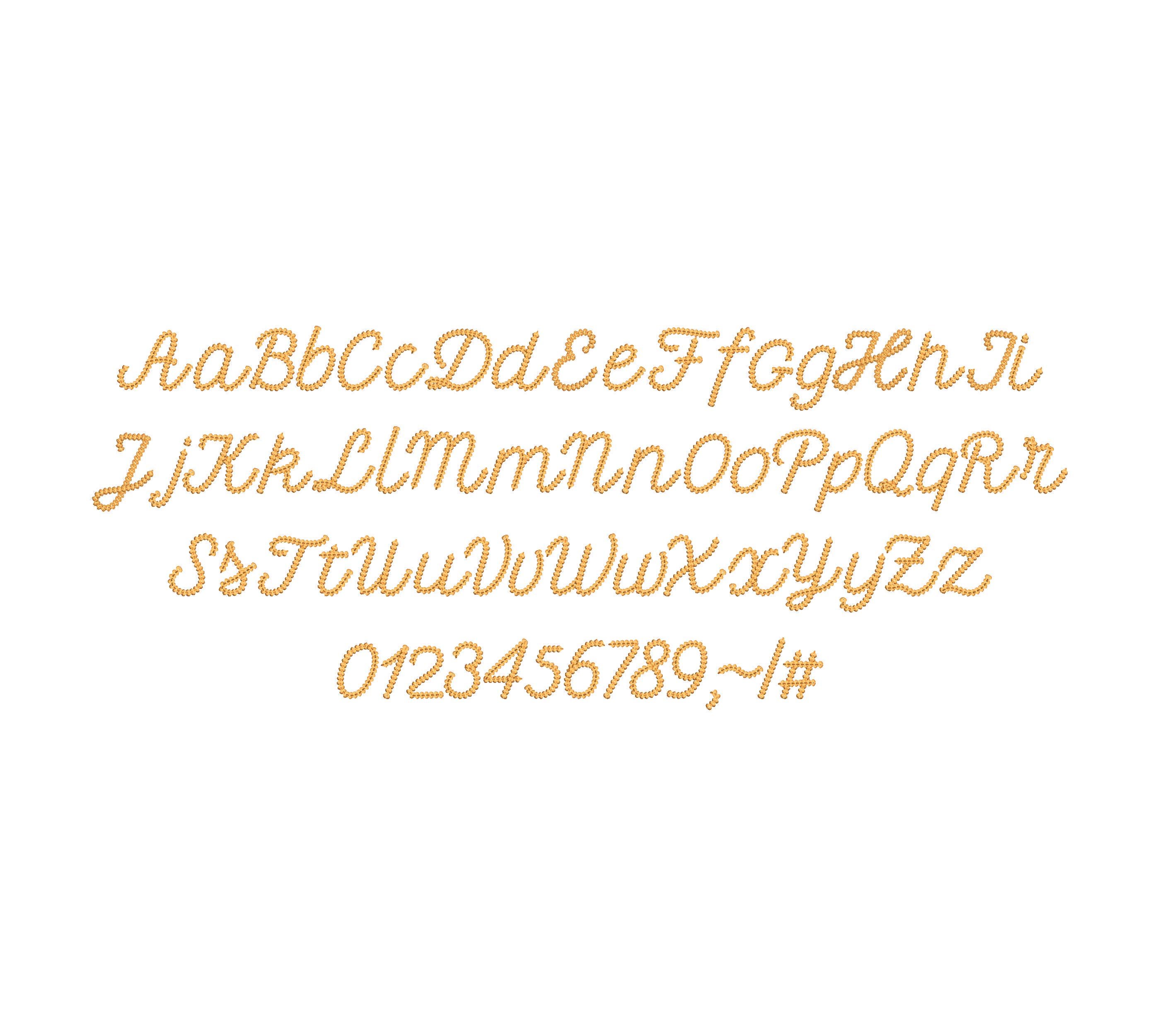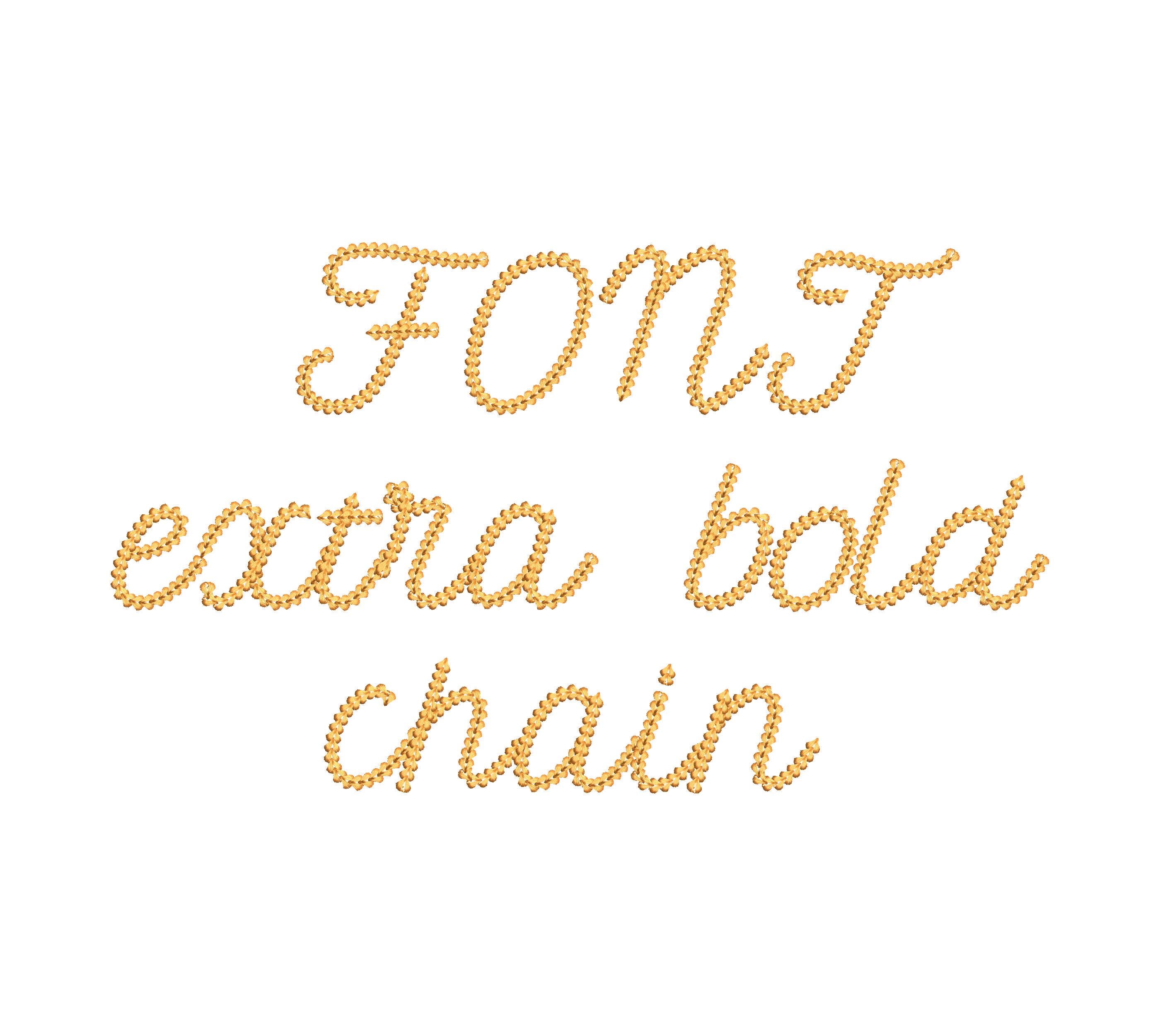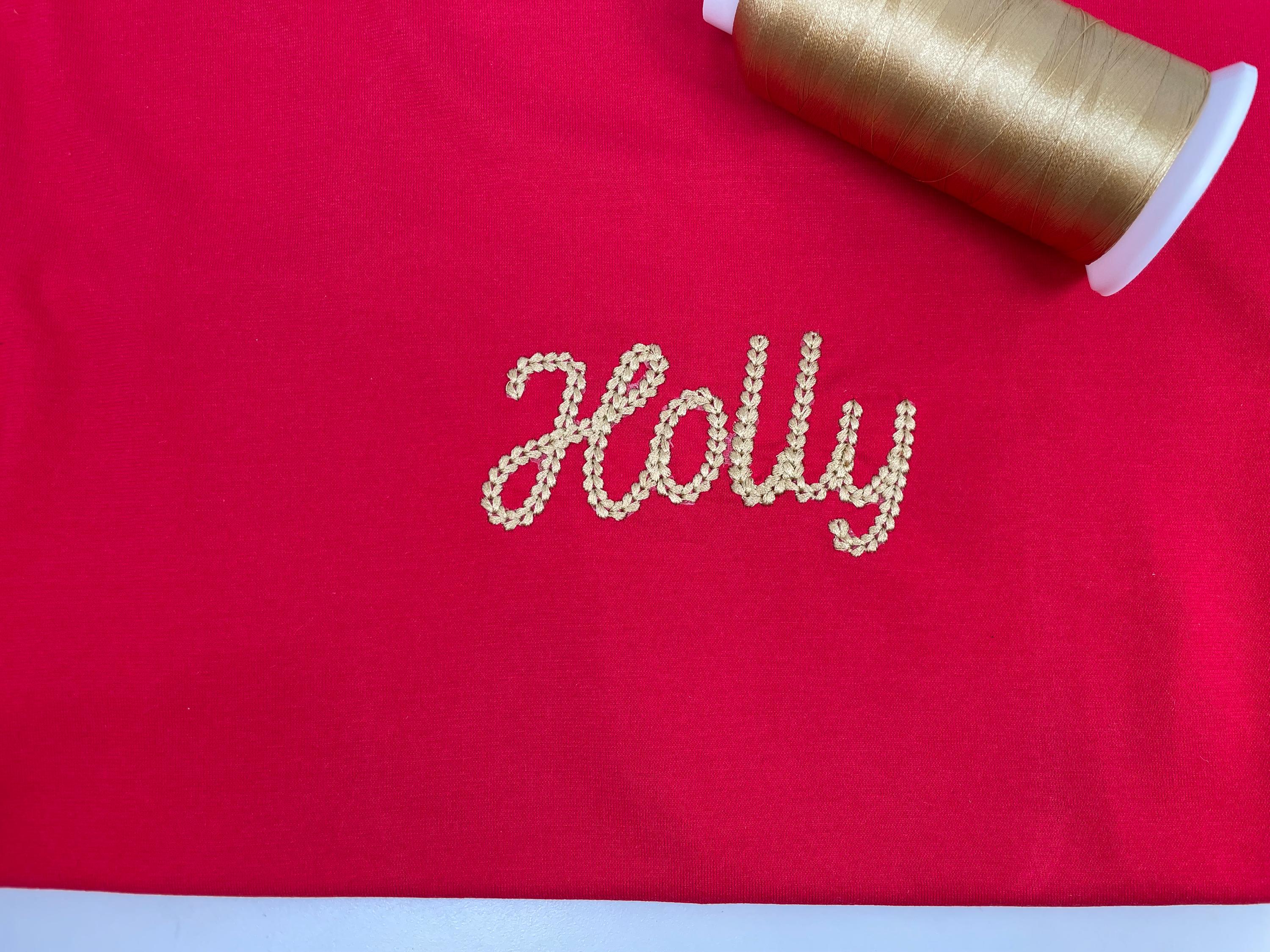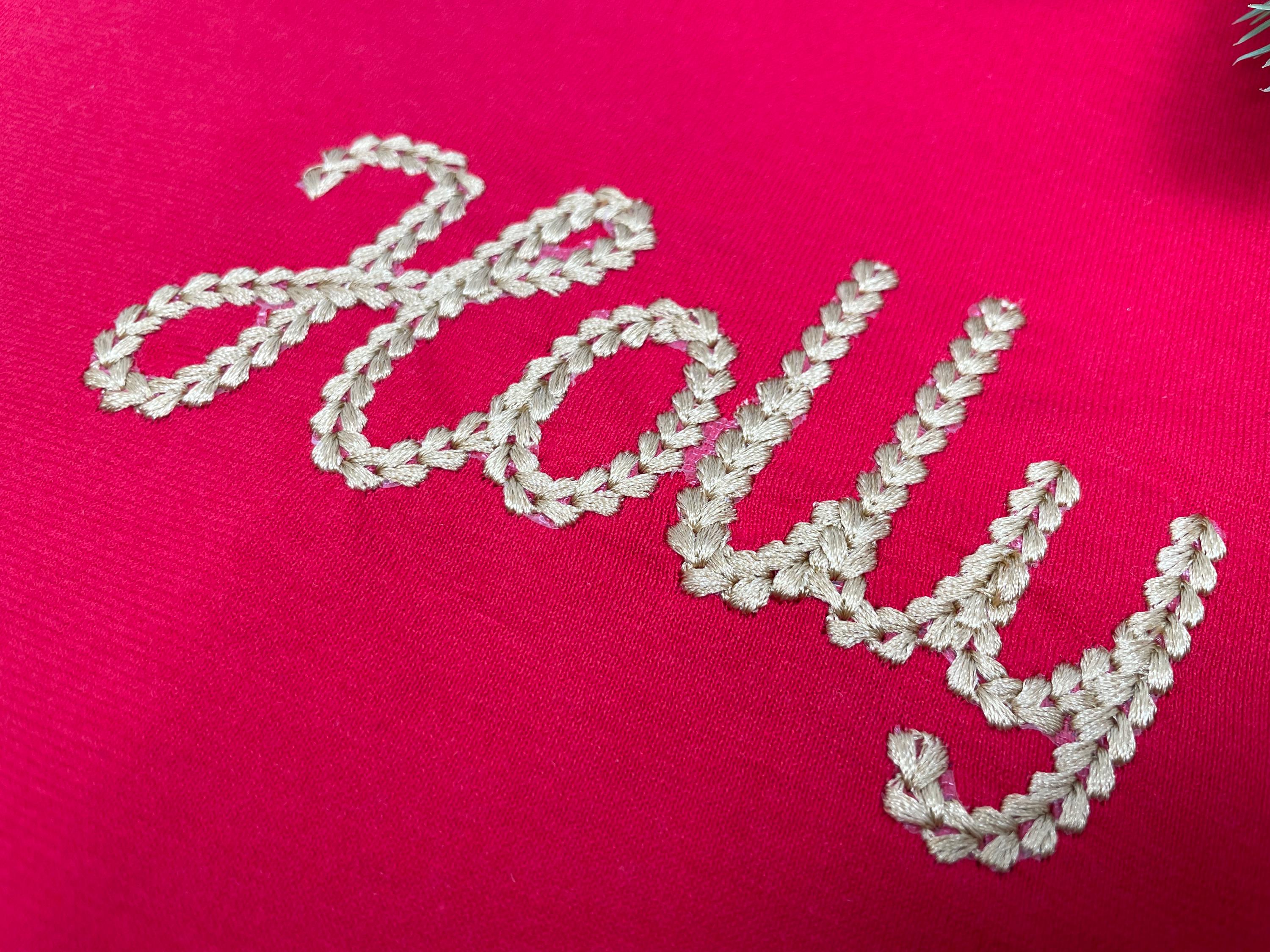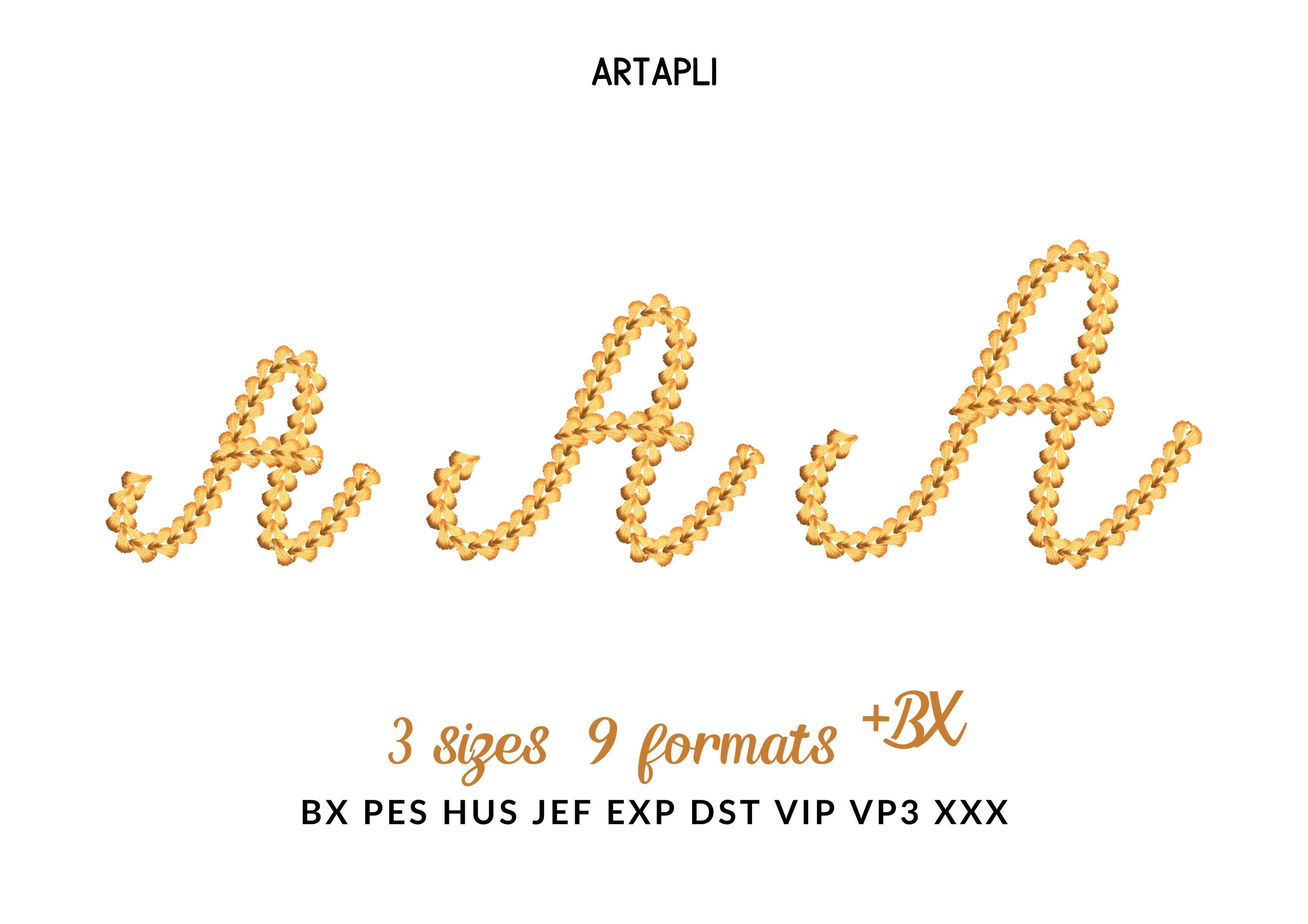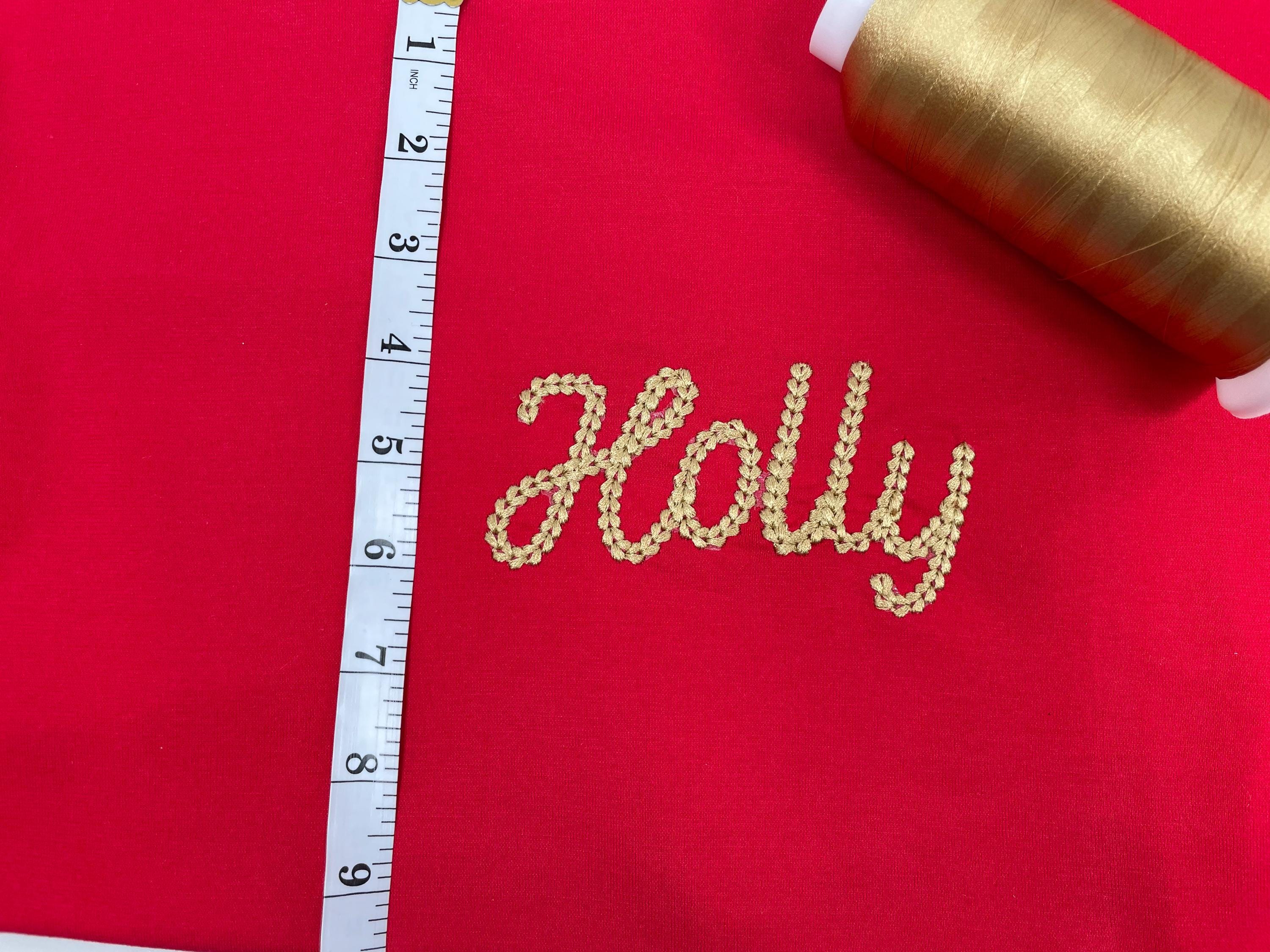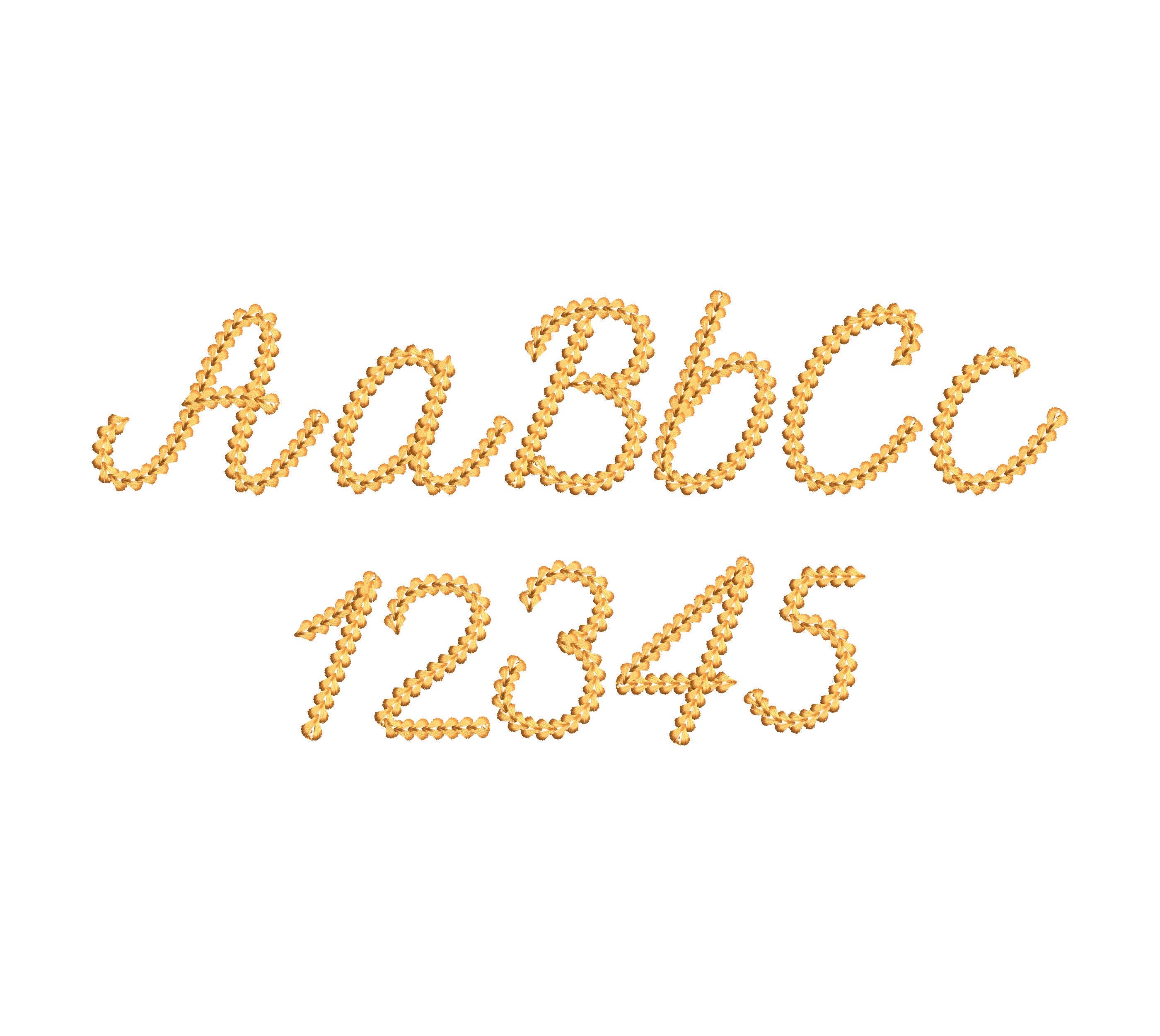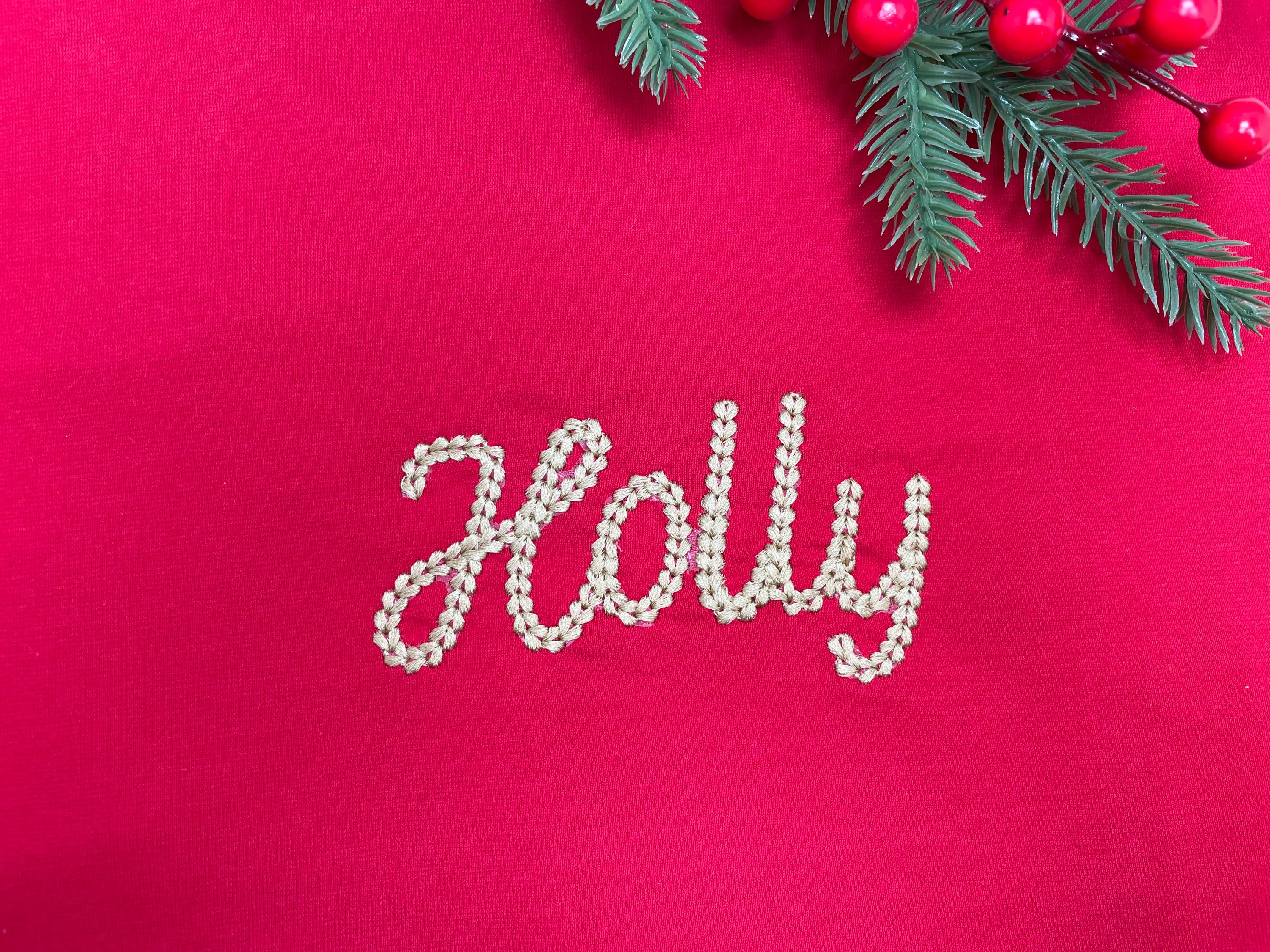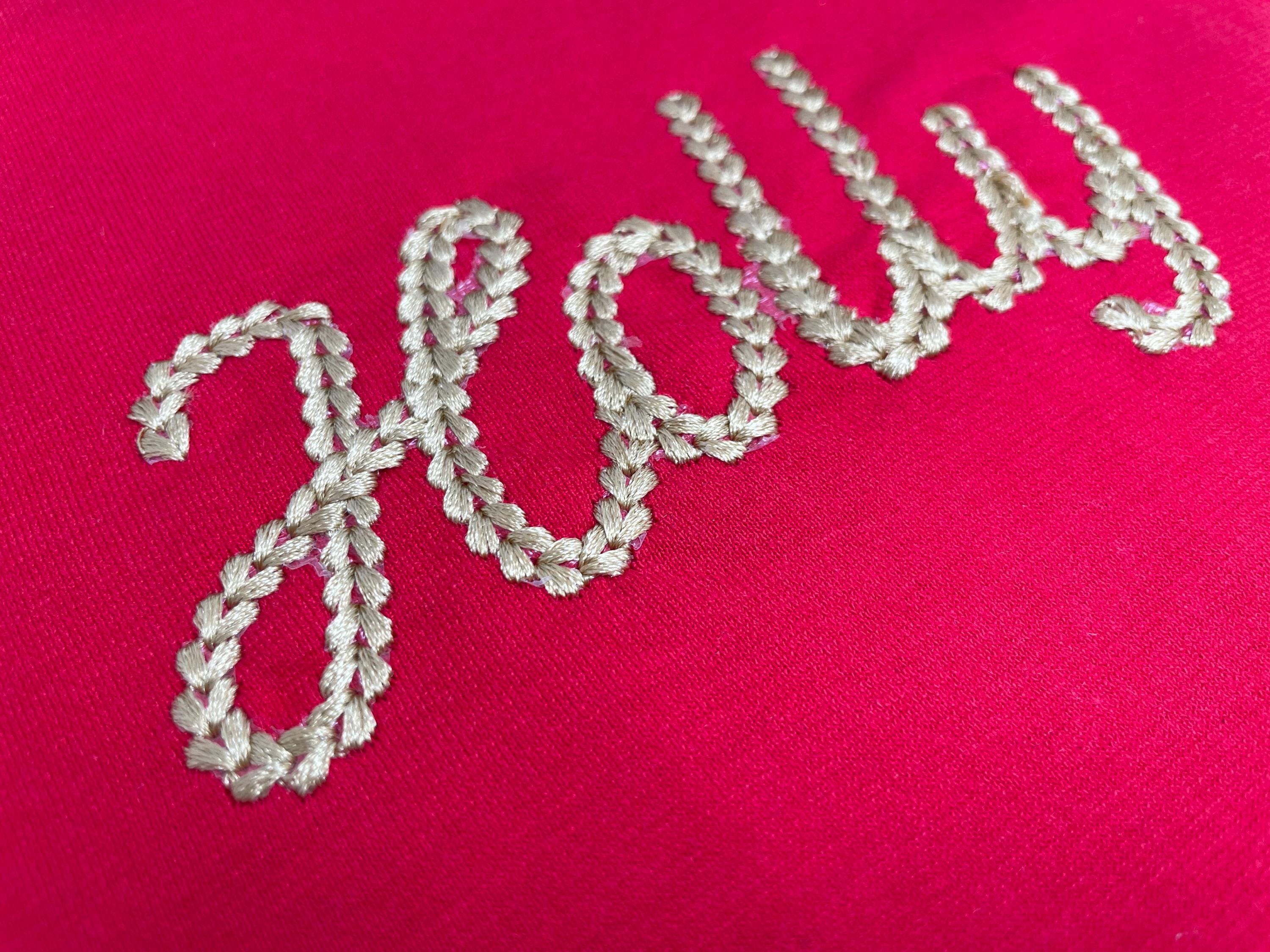
Extra Bold Chain stitch FONT Petit handwritten script alphabet monogram machine embroidery designs knit sweater effect sizes 2.1 up to 3.1in
Entire alphabet uppercase and lowercase letters, numbers, and punctuation.